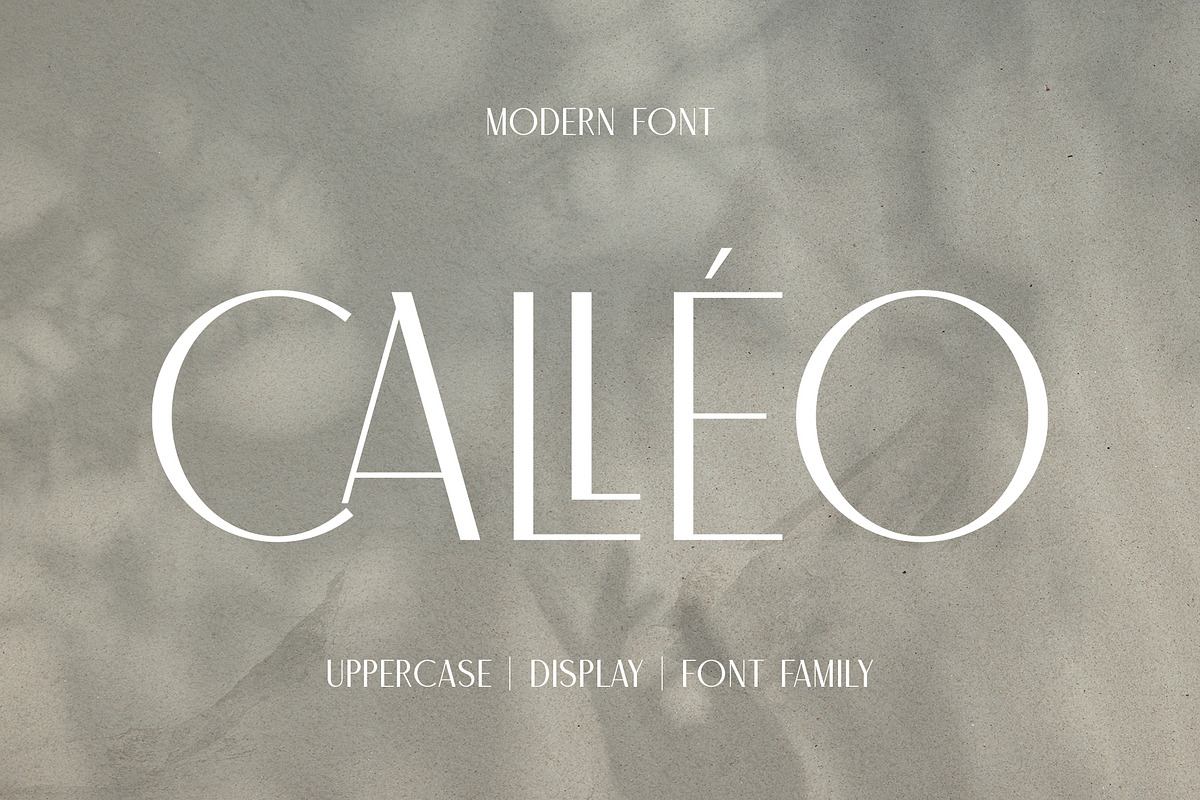
The Calleo Font Free Download is a stylish and modern sans-serif typeface with a clean, minimal design. Ideal for branding, website design, editorial layouts, posters, and social media graphics, this font combines sleek lines with contemporary elegance, making it perfect for both professional and creative projects.
With its balanced letterforms and versatile design, Calleo offers excellent readability while maintaining a strong, modern aesthetic. It includes uppercase and lowercase letters, numbers, punctuation, and multilingual support, making it perfect for a wide range of applications.